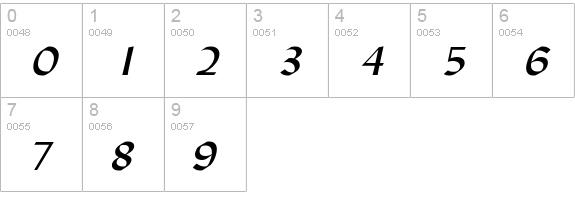
Lynda Wide Italic is a distinctive, extended-width, italic variant in the Lynda typeface family \xE2\x80\x94 well suited to design and typography projects.
Lynda Wide Italic is a stunning and elegant font that adds a touch of sophistication to any design project. With its sleek and modern aesthetic, this font is perfect for creating eye-catching headlines, titles, and more. The italicized style adds a unique flair to your text, making it stand out from the crowd. And the best part? Lynda Wide Italic is completely free to download at FontsMarket.com! Whether you're a designer looking to elevate your projects or someone who simply appreciates beautiful typography, this font is a must-have in your collection. Don't miss out on the opportunity to enhance your designs with this stylish and versatile typeface. Download Lynda Wide Italic today and start creating stunning visuals that leave a lasting impression.